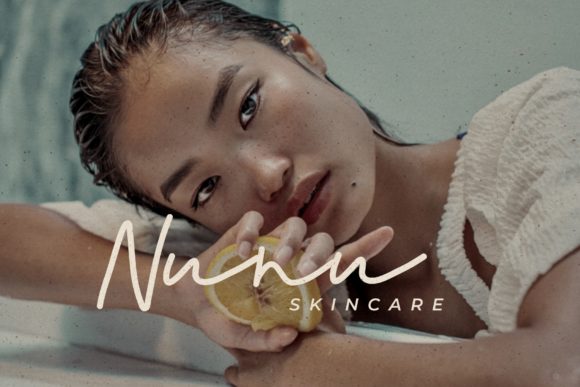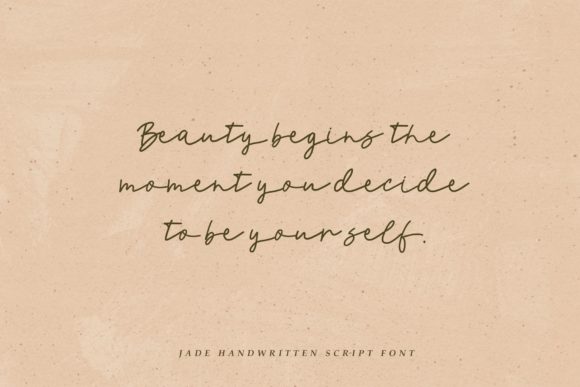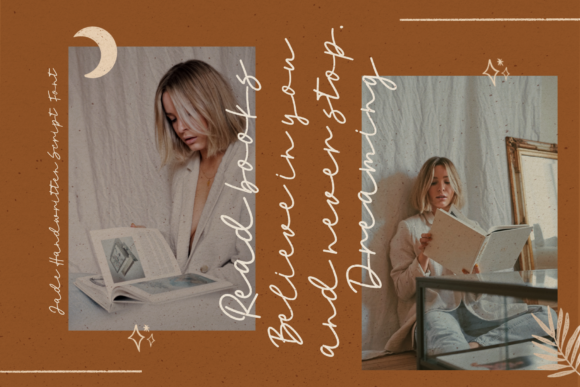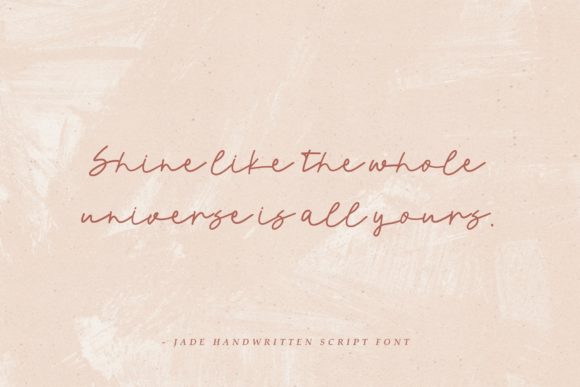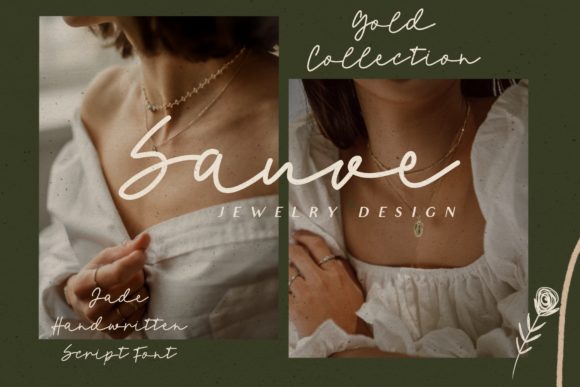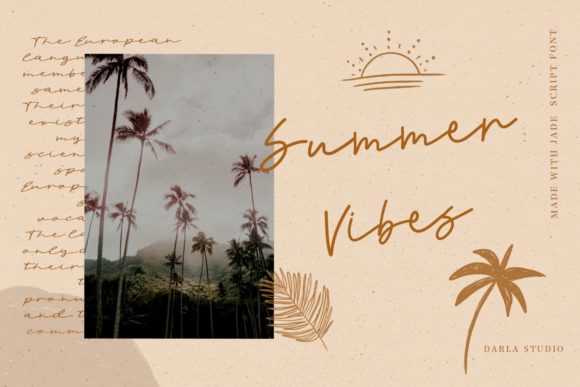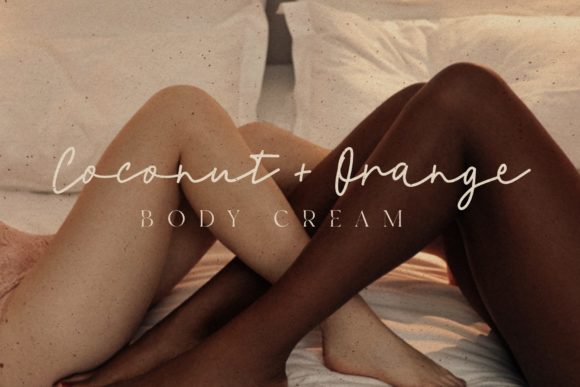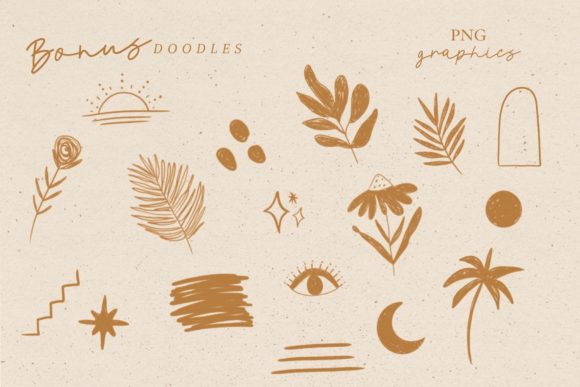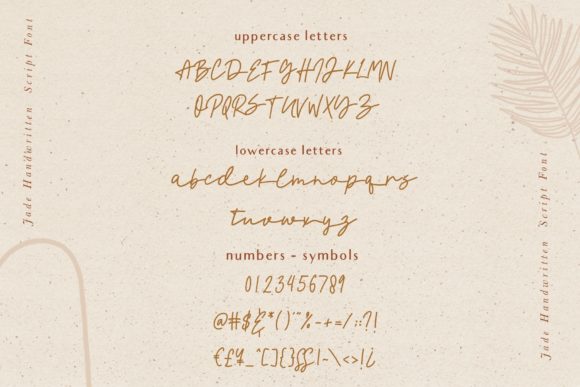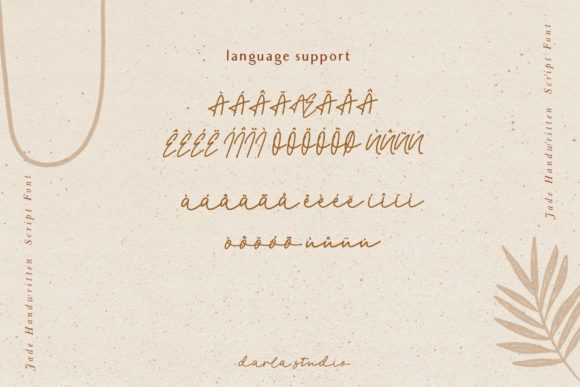
Jade Script Font
About Jade Script Font
Jade is a stylish script font perfect for creating beautiful quotes, blogs, logos, branding, social media, Wedding Invitations, greeting cards, or just adding a simple and elegant style to any project. It comes with a bonus graphics set so you can play around in your projects and make them pop.